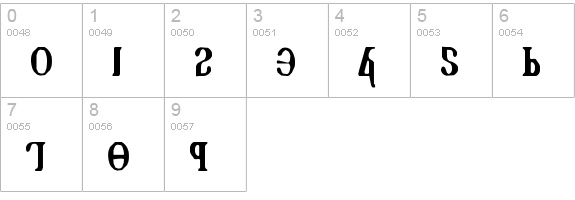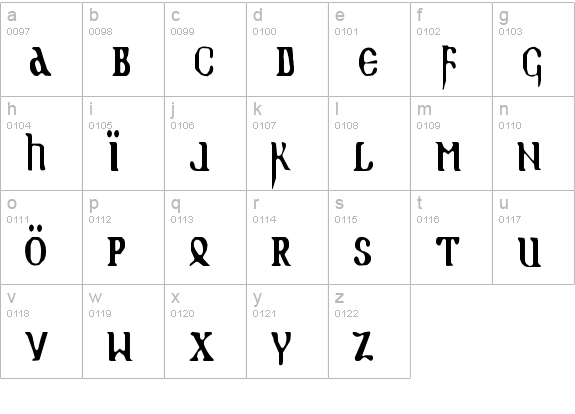
Holy Empire Condensed is a distinctive, condensed-width variant in the Holy typeface family \xE2\x80\x94 well suited to design and typography projects.
Introducing Holy Empire Condensed font, a timeless and elegant typeface that exudes sophistication and style. This condensed version of the classic Holy Empire font is perfect for adding a touch of modern flair to your designs while maintaining a sense of tradition and grace. With its clean lines and versatile design, Holy Empire Condensed is ideal for a wide range of projects, from branding and packaging to editorial design and more. Its sleek and streamlined appearance makes it a popular choice for creating impactful headlines and eye-catching graphics. Best of all, Holy Empire Condensed font is available for free download at FontsMarket.com. Don't miss out on this opportunity to enhance your design projects with this stunning and versatile typeface. Download Holy Empire Condensed font today and elevate your designs to new heights of sophistication and style.